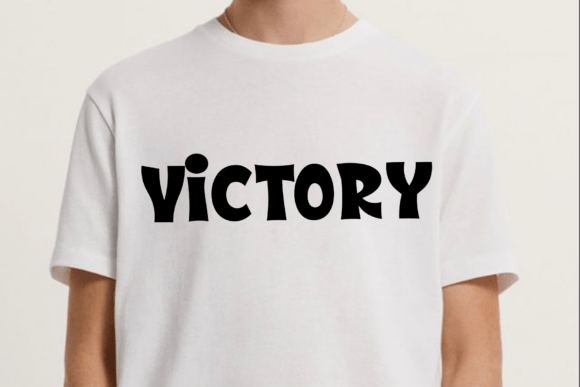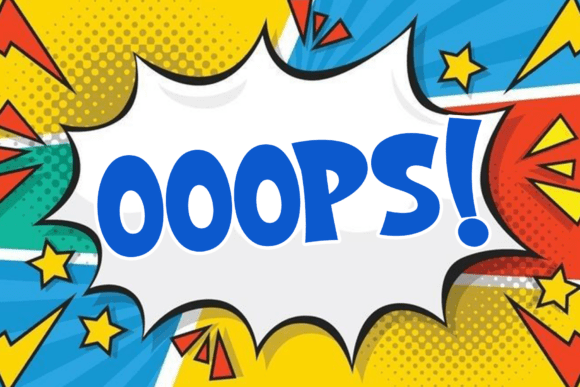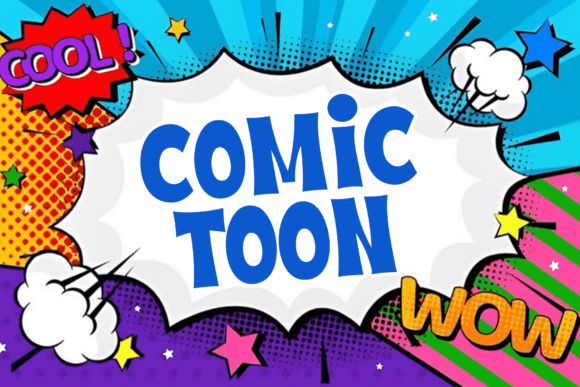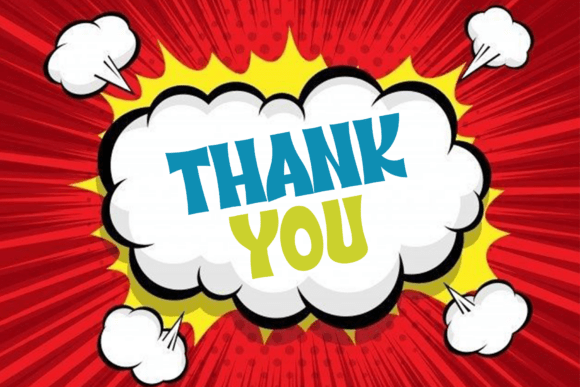
Have you ever found yourself stuck in a creative rut, searching for that one element to bring your project to life? I know I have! It’s like having a blank canvas staring back at you, waiting for the perfect brushstroke. And then, it hits you – the perfect font to tie everything together.
Enter the Comic Kids Font, a playful and charming font that’s perfect for adding a touch of whimsy to your designs. With its fun and neat style, it’s no wonder this font is a favorite among designers. Whether you’re working on a children’s book, a comic strip, or even a marketing campaign, the Comic Kids Font is a valuable addition to your creative arsenal.
So, what makes the Comic Kids Font so special? Its versatility, for one. It can be used in a wide range of projects, from illustrations to advertisements, and still manage to stand out. With the Comic Kids Font, you can add a touch of personality to your designs and make them truly unforgettable.
Comic Kids Font Key Features
- Font Family: Comic Kids is a fun, child-friendly font designed for use in children’s books, cartoons, and other creative projects.
- Unique Characteristics: The font features playful, rounded edges, and whimsical letterforms, making it perfect for adding a touch of childhood magic to your designs.
Comic Kids Font Review
When I first laid eyes on the Comic Kids font, I was immediately drawn to its playful and whimsical aesthetic. ✨ The font’s rounded edges and bubbly texture give it a fun, childlike quality that’s perfect for kids’ content, educational materials, and even some creative projects.
One of the things that works well for the Comic Kids font is its versatility. ✨ It comes in a range of weights and styles, from light and delicate to bold and playful. This makes it easy to use in a variety of contexts, from headings and titles to body text and quotes.
- ⚠️ The font may be too childish for more mature or professional projects.
- ⚠️ The font’s texture and rounded edges may not be suitable for all types of content, such as financial or technical materials.
- ⚠️ The font may not be as readable at very small sizes or in low-resolution environments.
Overall, the Comic Kids font is a fun and engaging choice for designers looking to add a playful touch to their projects. While it may not be suitable for all types of content, it’s a great option for kids’ content, educational materials, and creative projects.
The Comic Kids Font is ideal for creating playful and fun designs, such as:
- Children’s books and educational materials.
- Cartoon and comic strips.
- Party invitations and decorations.